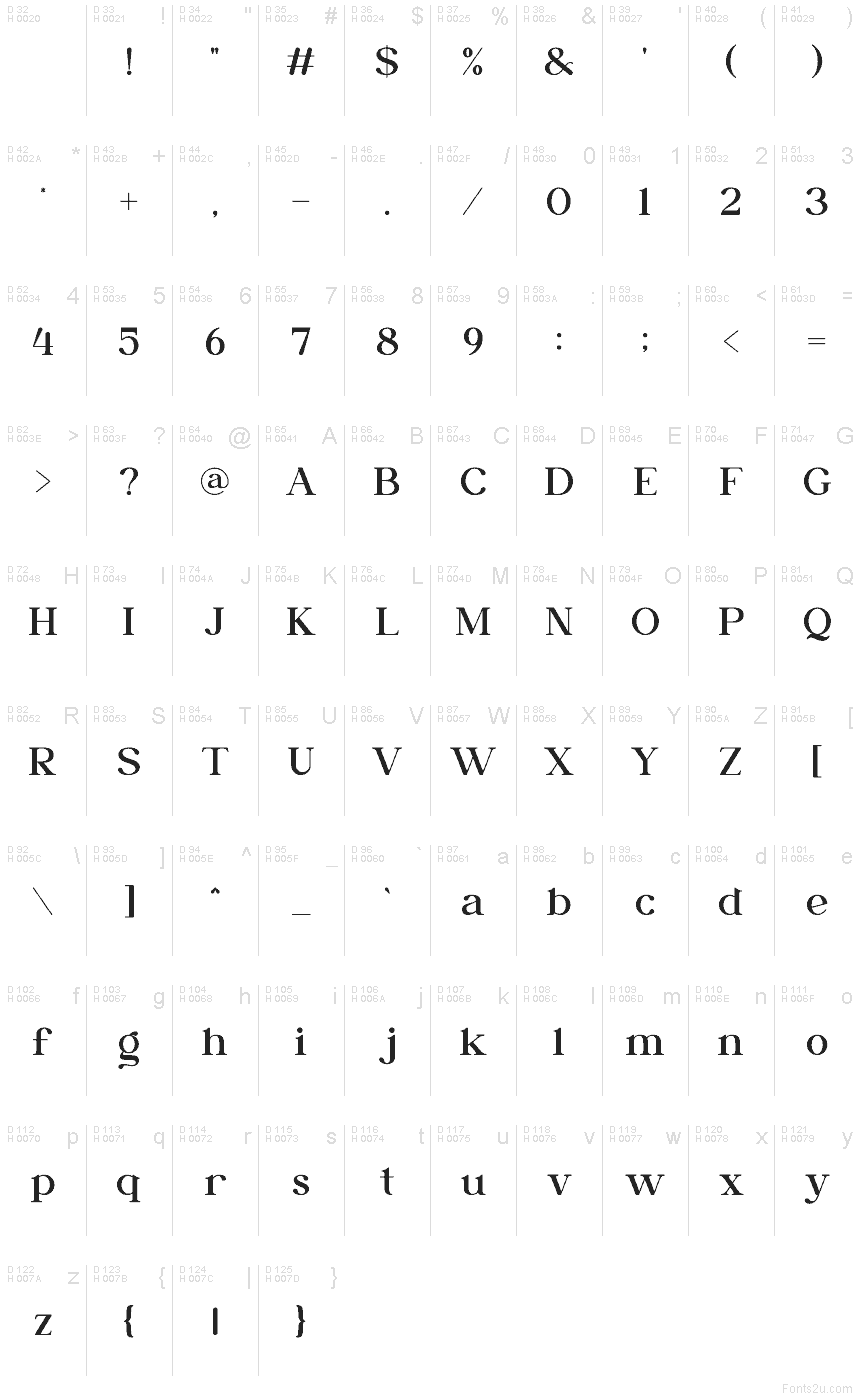
Daisya
Daisya font by ErmediaStudio is a free elegant serif font. It leans into high contrast and crisp, blade-like serifs, then softens the edges with gentle curves that feel almost petal-shaped. The result is a refined voice that reads luxurious without going cold—inky strokes that snap, then glide. It’s the rare serif that carries both runway drama and readable poise.
Using Daisya, headlines bloom with presence while subheads stay graceful, making it a natural fit for editorial spreads, boutique logos, beauty packaging, wedding materials, posters, and social promos. This free font loves generous scale and a touch of letterspacing. Pair it with a clean sans (think a neutral grotesque) to let Daisya’s sculpted forms do the talking.